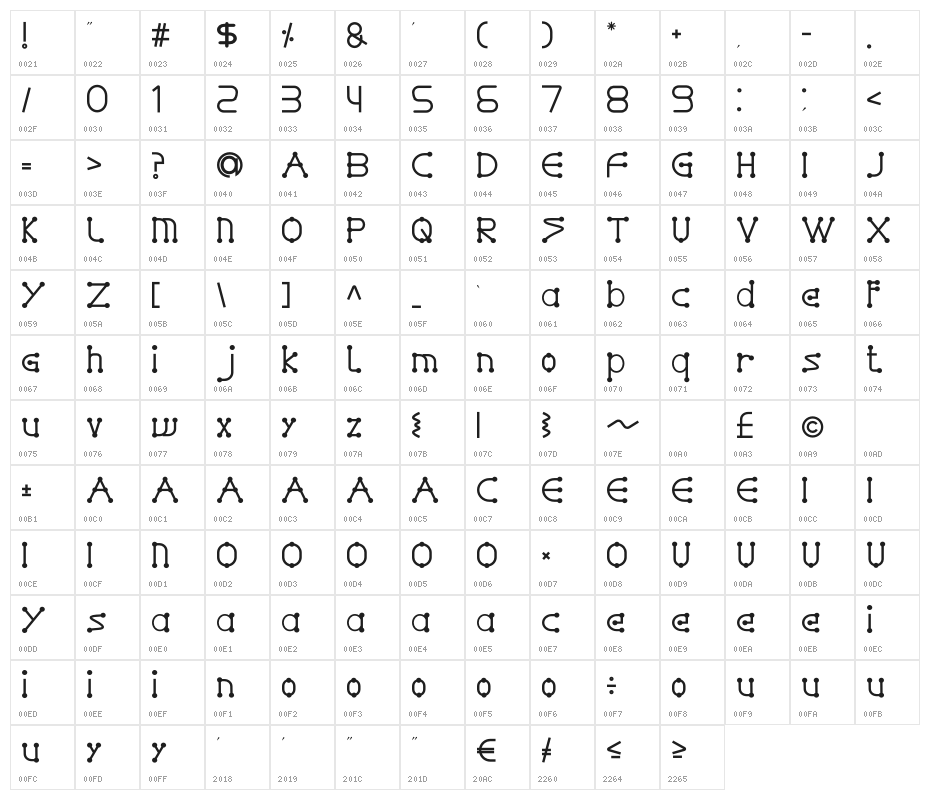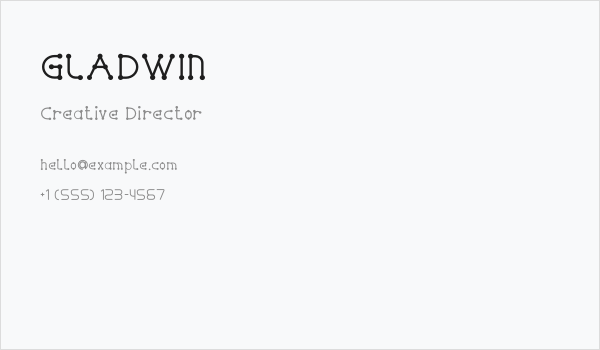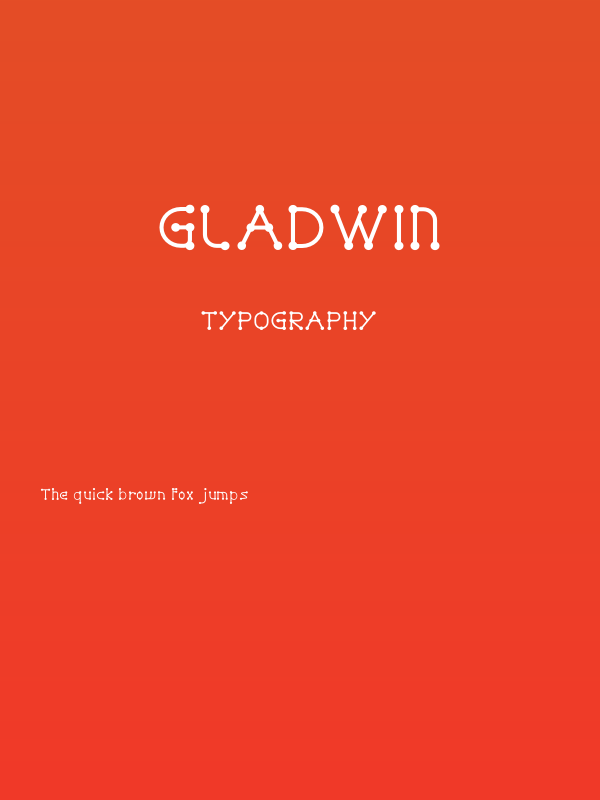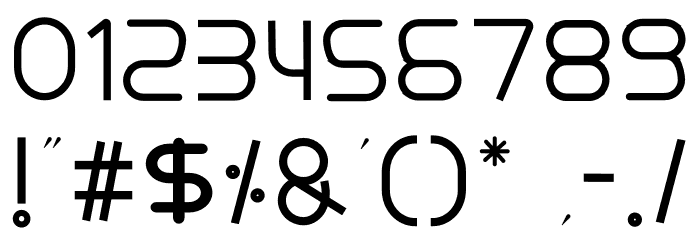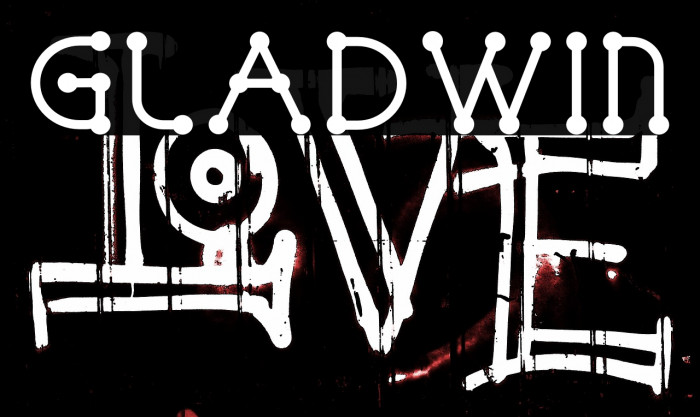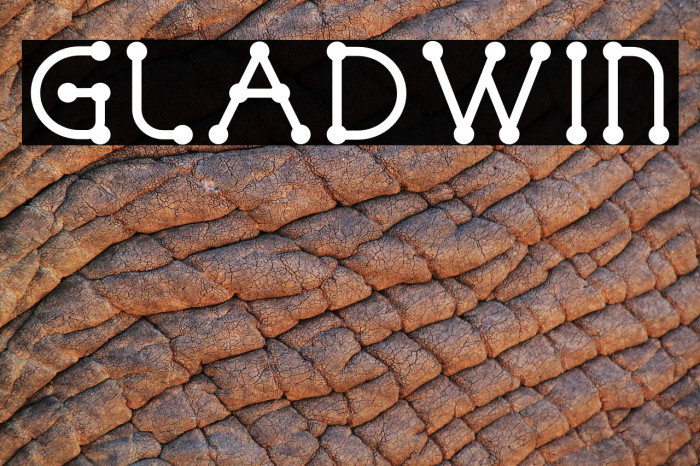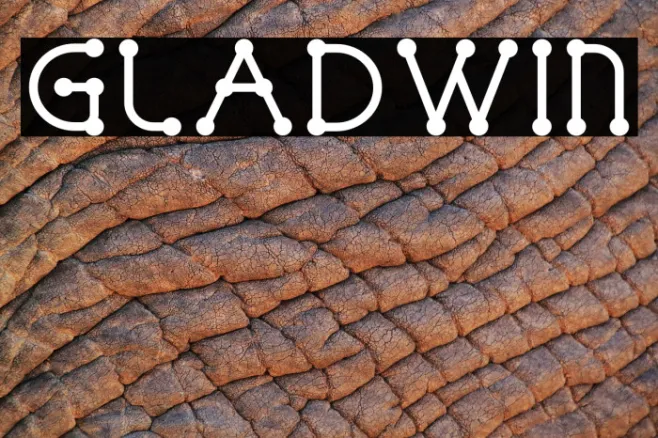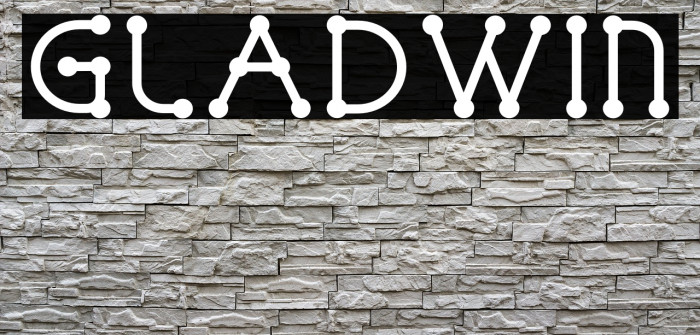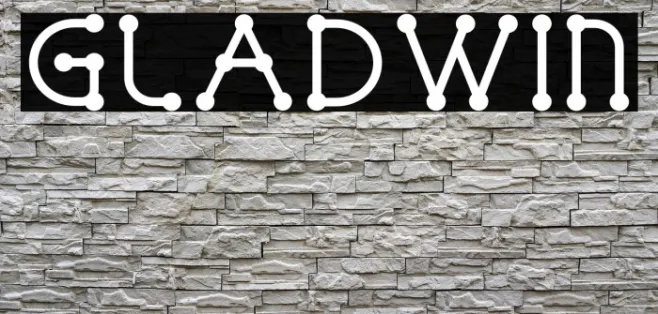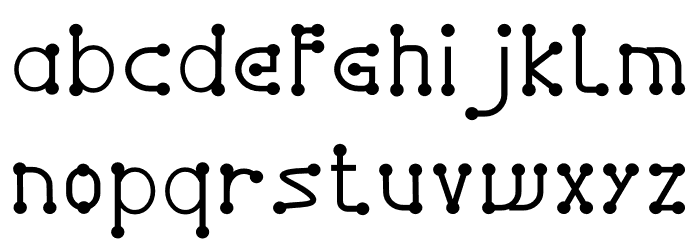
GLADWIN Font
GLADWIN Description
This font features a unique design where each character is constructed with a series of dots connected by lines, creating a modern and futuristic appearance. The uppercase and lowercase letters maintain a consistent style, with rounded edges and a geometric structure. Numbers and special characters follow the same design principles, ensuring uniformity across all glyphs. The font's playful yet structured look makes it suitable for creative projects that require a distinctive and eye-catching typeface.
| Proposed Projects | Ideal for tech-themed designs, modern branding, digital art projects, and innovative product packaging. |